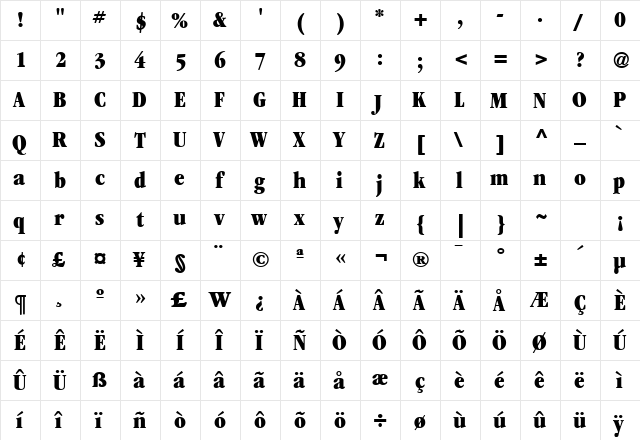
GarryMondrianCond8 UltraSH Font Preview
GarryMondrianCond8 UltraSH
Design Context for GarryMondrianCond8 Typeface
GarryMondrianCond8 is a composed and adaptable typeface that performs quietly and consistently across a wide range of design contexts. Its narrow stance lets it pack a punch even in space-constrained designs.